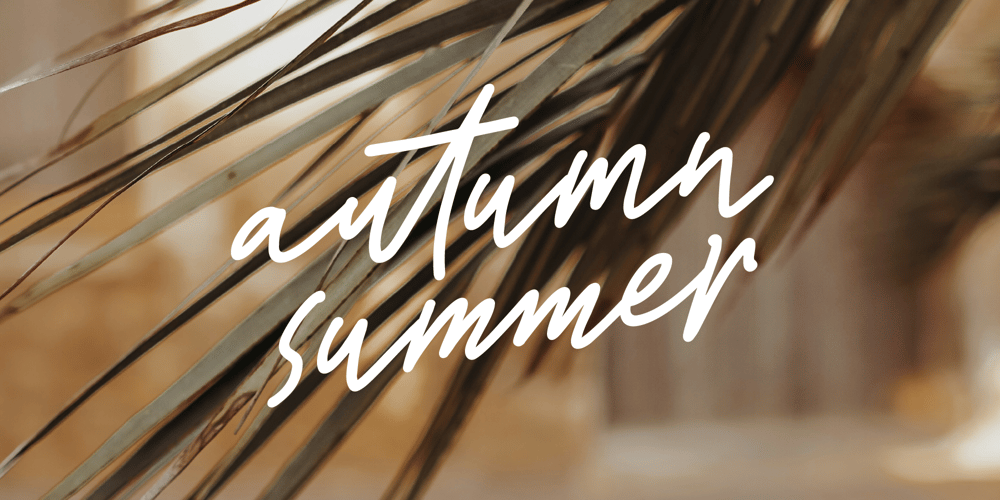
Fd Autumn Summer Font Family was designed by Ramandhani Nugraha and published by Fortunes Co. Fd Autumn Summer contains 1 styles and family package options. Individuals’ natural handwriting reflects their emotions and personalities. Individual handwriting carries unique characteristics, such as pressure variations, slants, and flow, that set it apart from typed text. Organic writing evokes nostalgia and authenticity by connecting deeply with human touch and expression. Letters, notes, and artwork with natural handwriting remain cherished despite the rise of digital communication. By capturing the nuances of each stroke, it provides a tangible link between the writer and their work.